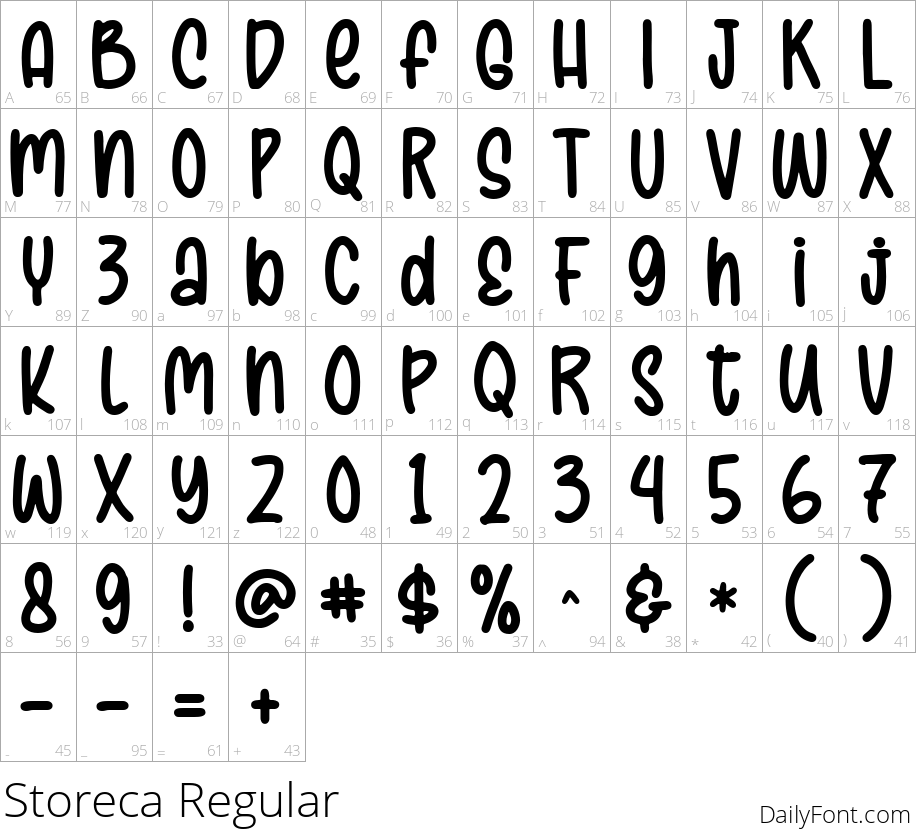
Storeca
Introducing Storeca, a quirky and playful handwritten font that adds a unique flair to any design project. Its informal style makes it an ideal choice for those looking to infuse a sense of fun and personality into their work. Whether you’re crafting invitations, greeting cards, or social media graphics, Storeca’s relaxed vibe is sure to engage your audience and make your creations stand out.
Storeca shines brightly in any setting, striking the perfect balance between sophistication and casual charm. This versatile font works wonderfully for both personal and professional applications, ensuring your message is conveyed with warmth and authenticity. Give your projects an artistic touch with Storeca, the font that invites creativity and encourages connection. Explore the endless possibilities and let your designs reflect a carefree and inviting spirit with this delightful handwritten typeface.